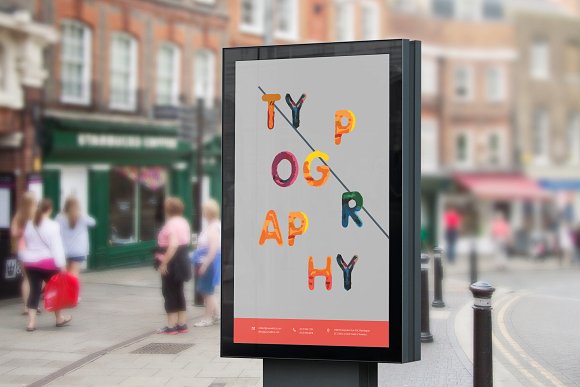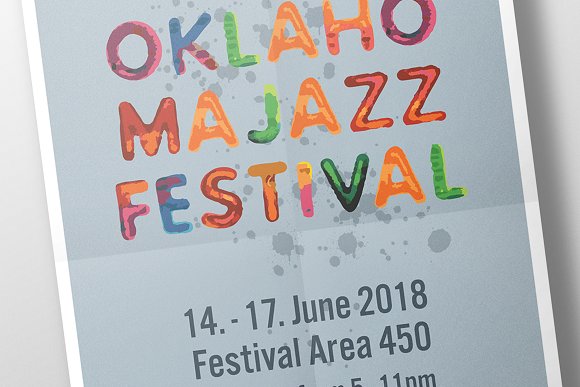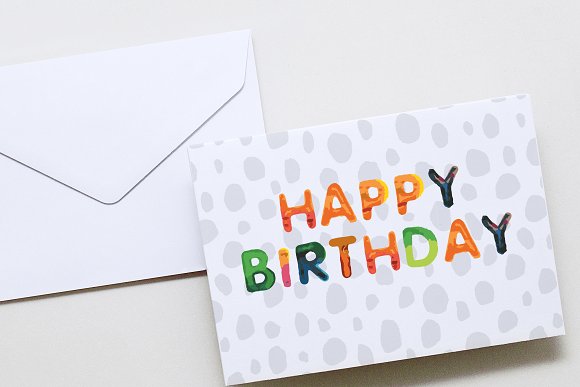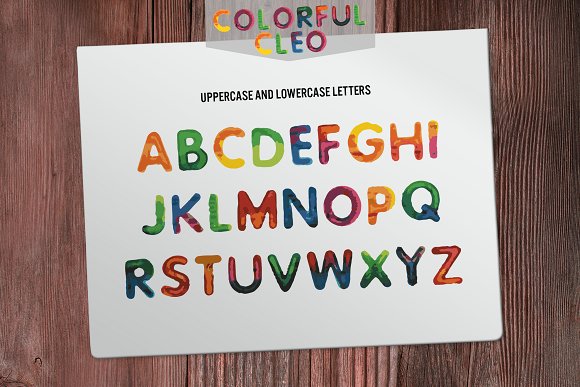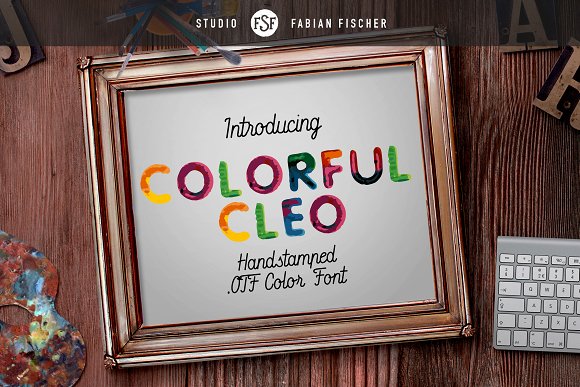
Colorful Cleo – Color Font
Happy to introduce you my new color font called “Colorful Cleo” which I created with stamped letters coated with water color. With the water color I added some nice gradient to the colors. Perfect for designing eye catching posters, covers or print media products.